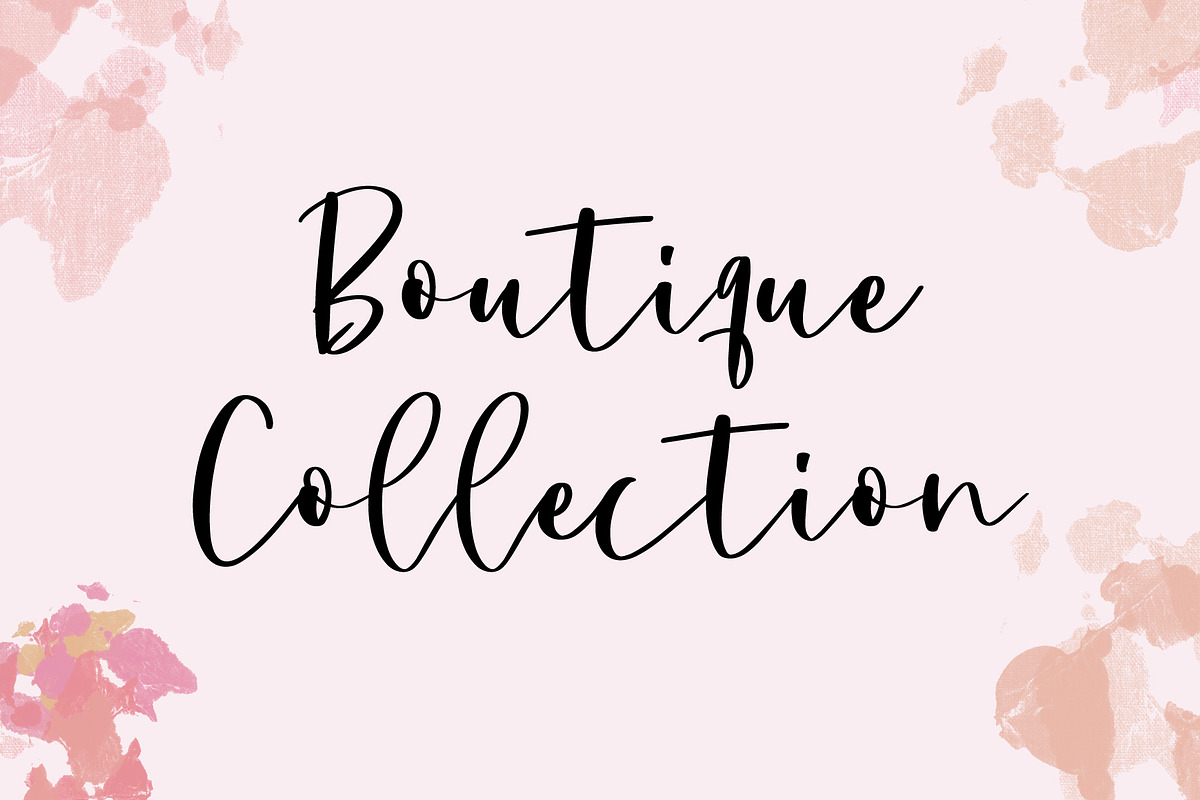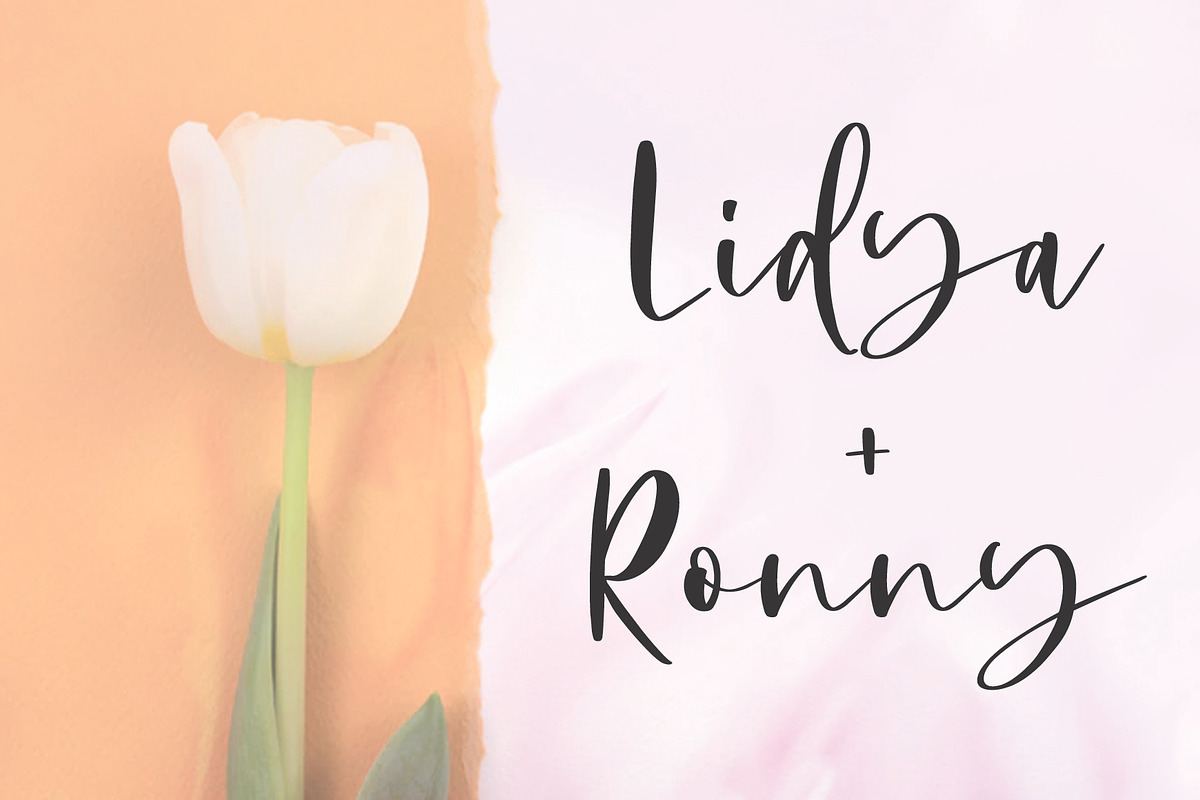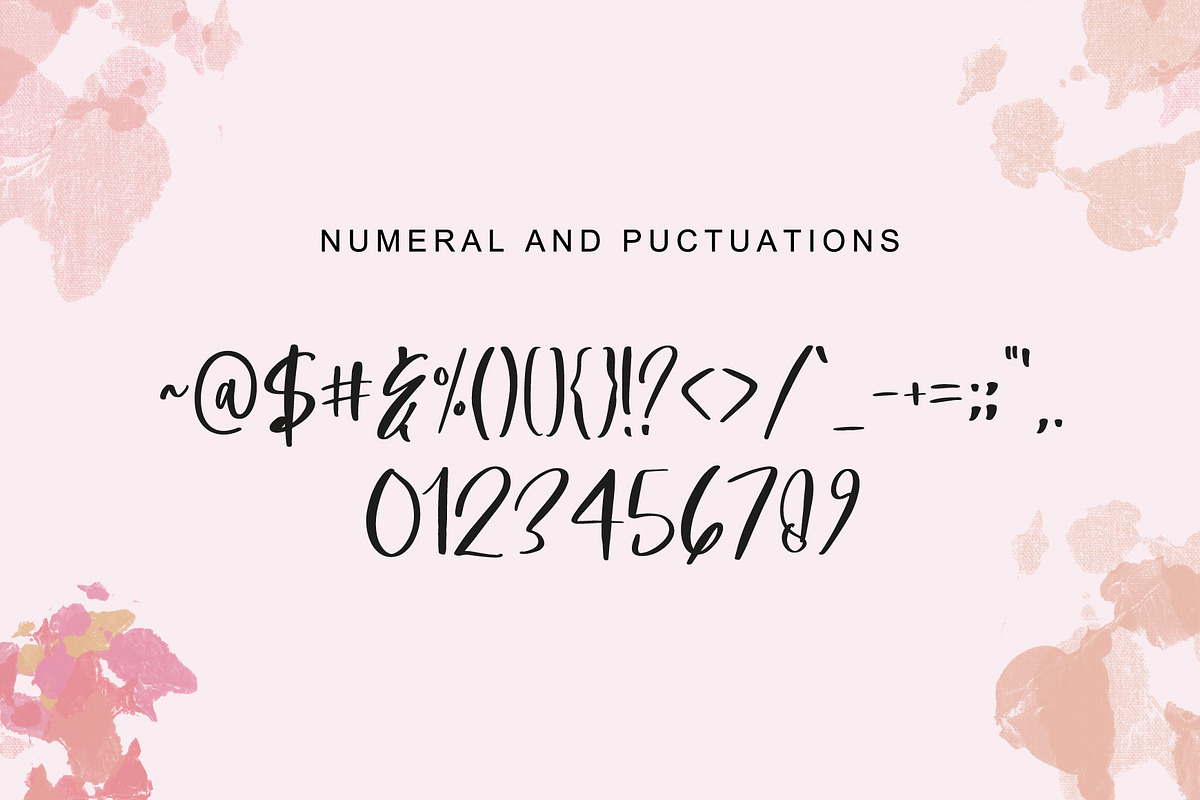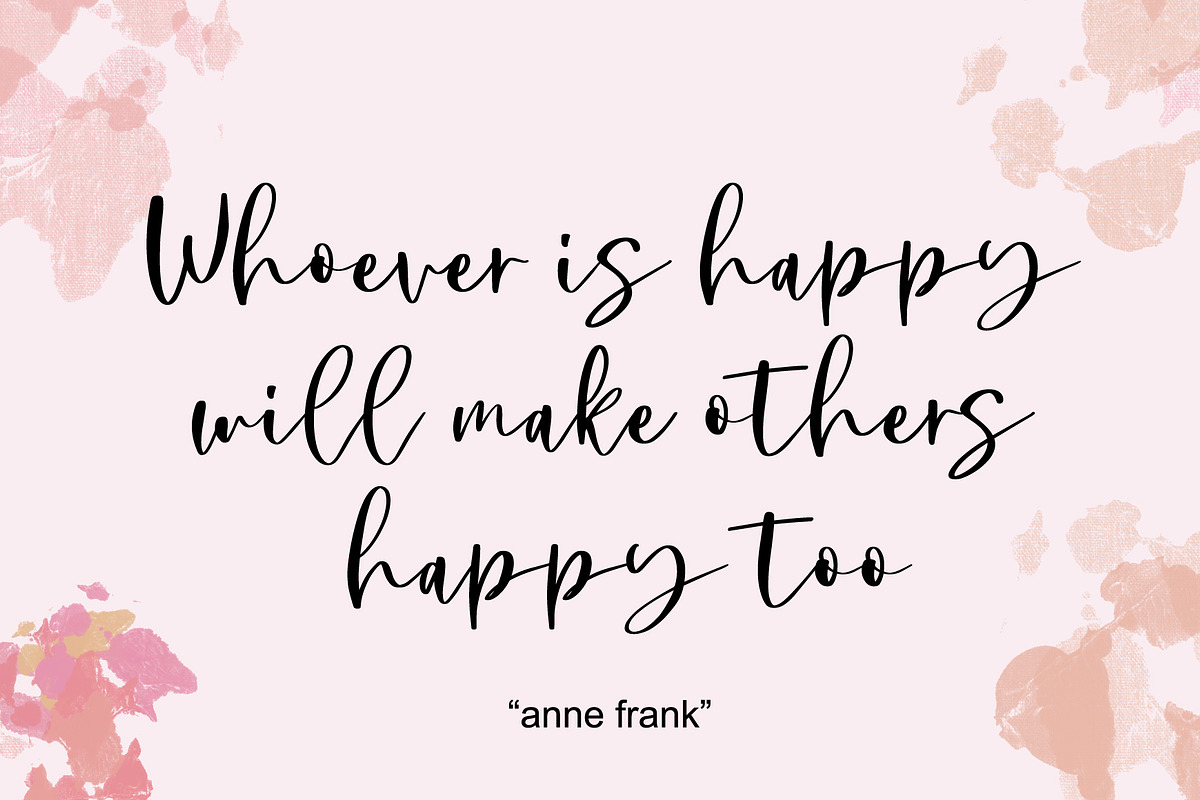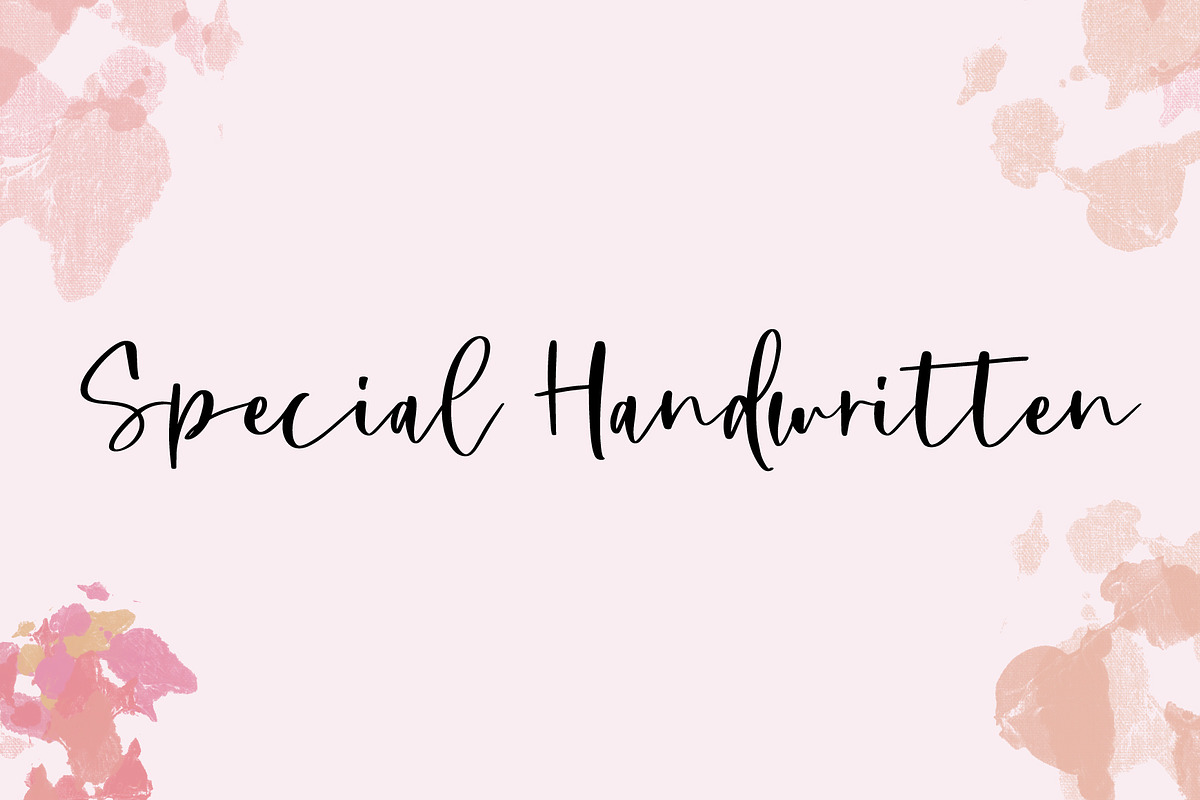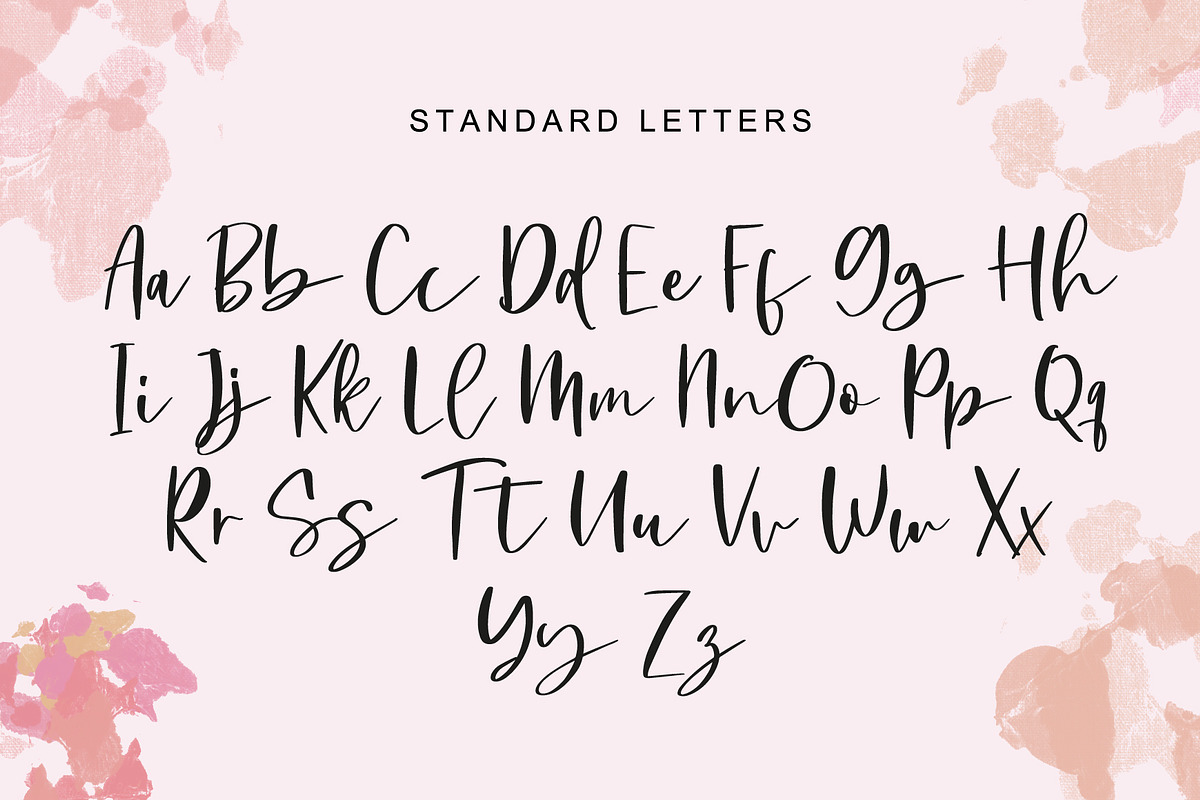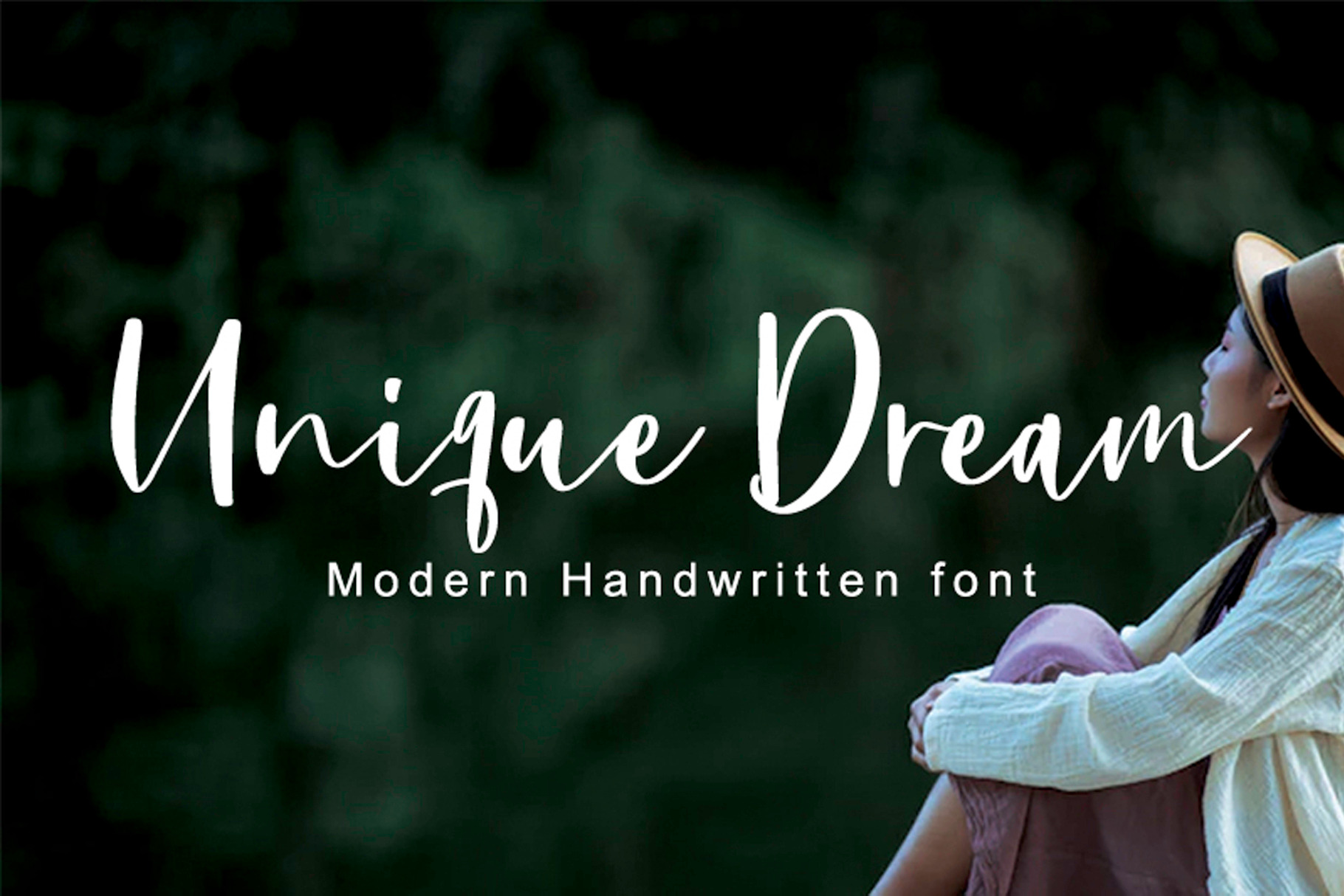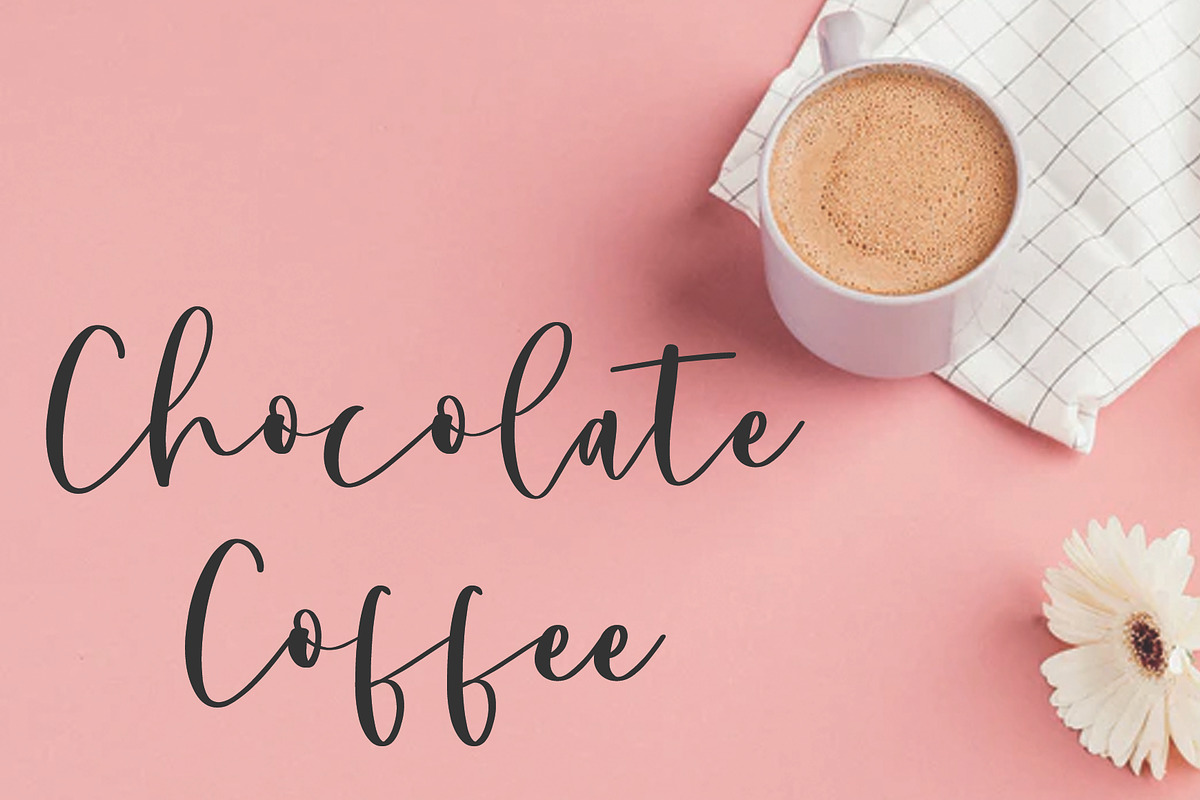
Unique Dream - Handwritten Font
Unique Dream is an elegant brush script font with a contemporary atmosphere and impeccable form, inspired by timeless classic calligraphy. Not too thin and not too thick, balanced and varied, this font was designed to enhance the beauty of your projects. Perfect for branding, digital designs, for logos, social media, websites, blogs, instagram, cards, business cards, branding, and more!